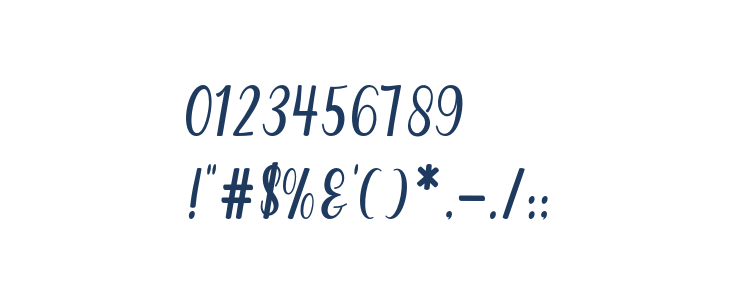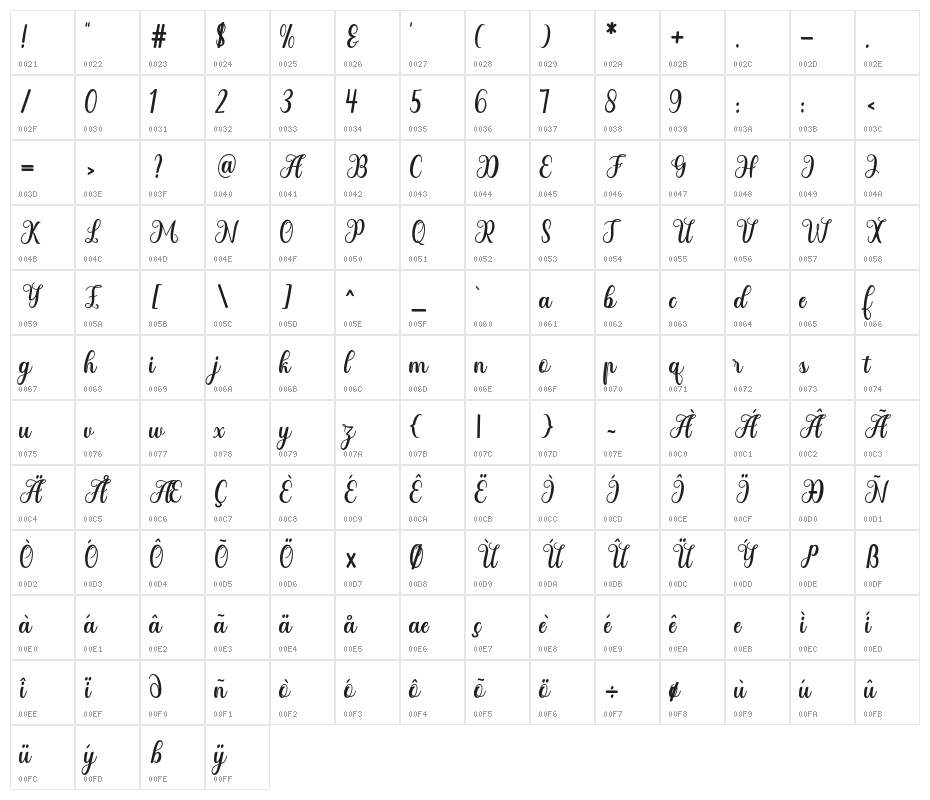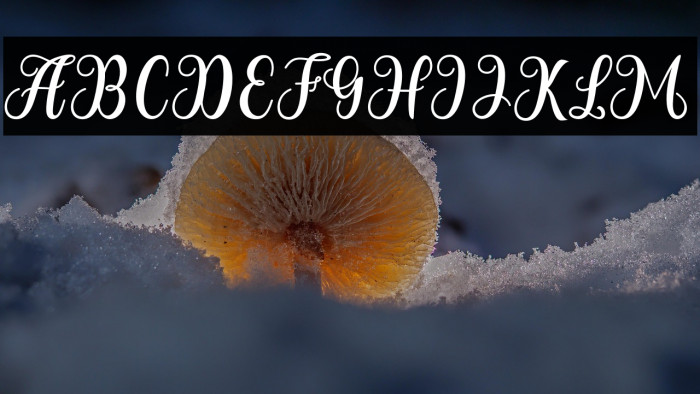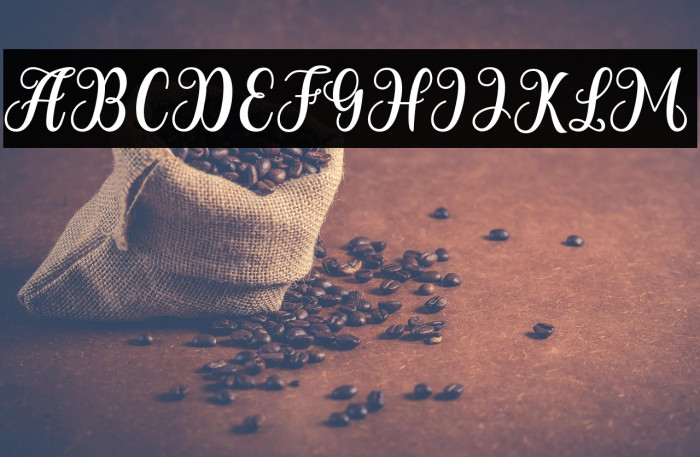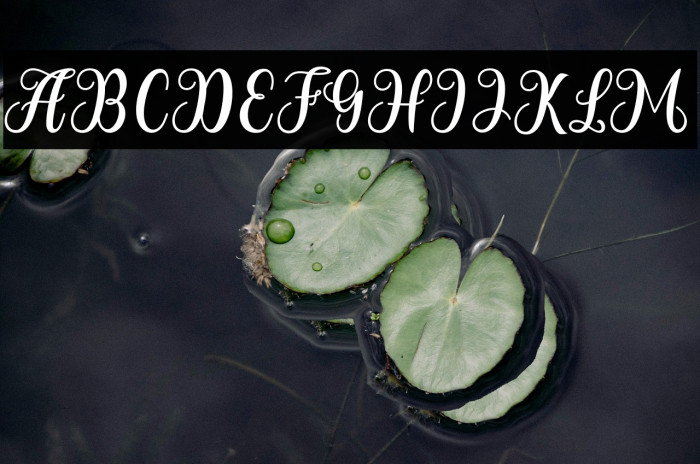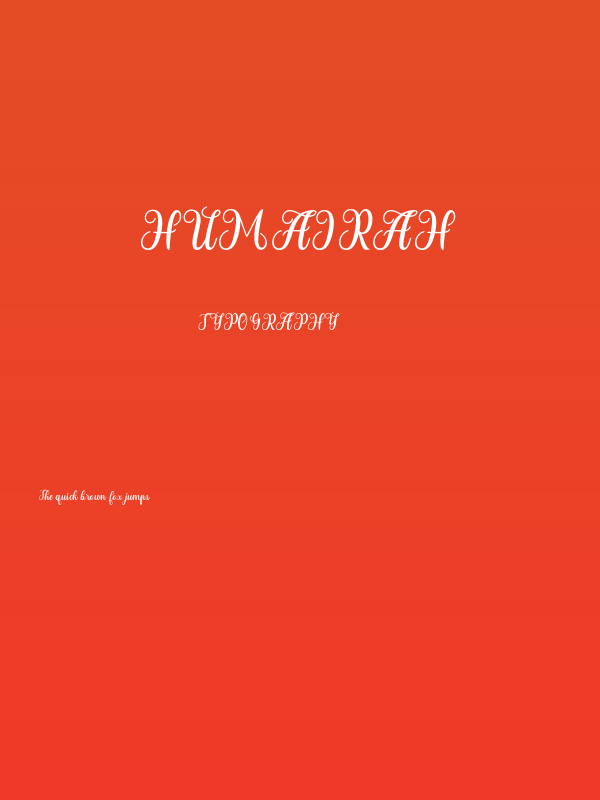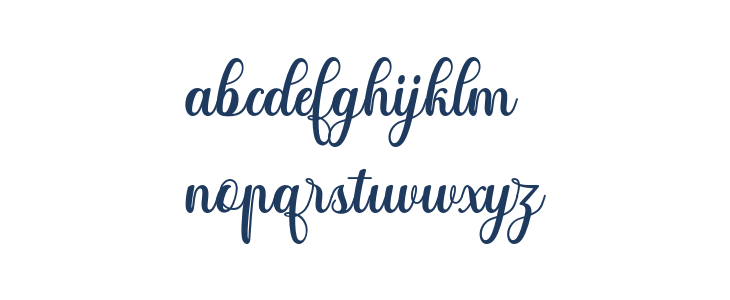
Humairah Font
Humairah Description
This font features a flowing, cursive script style that exudes elegance and sophistication. The uppercase letters are characterized by their ornate loops and swirls, giving them a decorative flair. The lowercase letters maintain a consistent flow, with smooth connections between characters, enhancing readability while retaining a stylish appearance. The numerals are distinct and clear, complementing the overall script design. Special characters are crafted with the same attention to detail, ensuring they blend seamlessly with the alphabetic characters. This font is ideal for projects that require a touch of elegance and personality.
| Overall Style | Elegant, Decorative |
| Use Case | Headlines, Invitations, Branding |
| Proposed Projects | Ideal for wedding invitations, greeting cards, branding, and elegant packaging designs. |